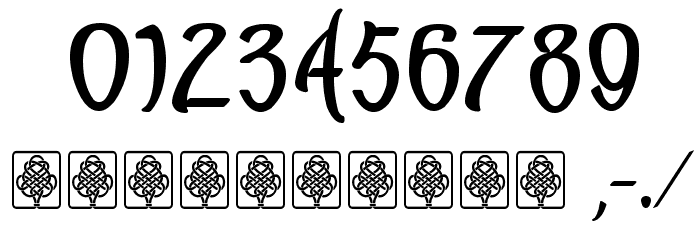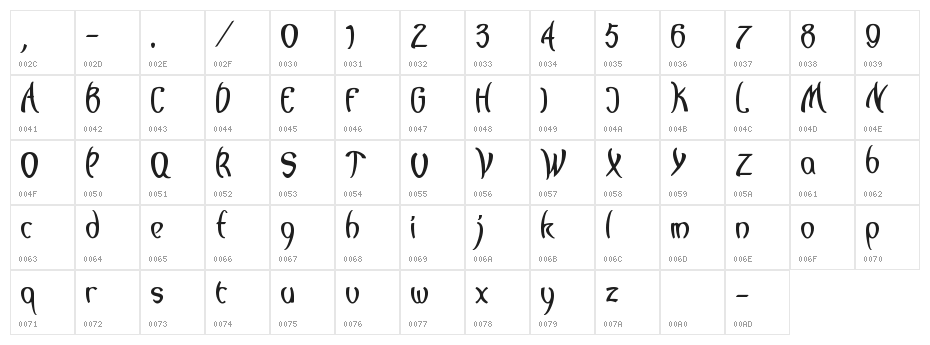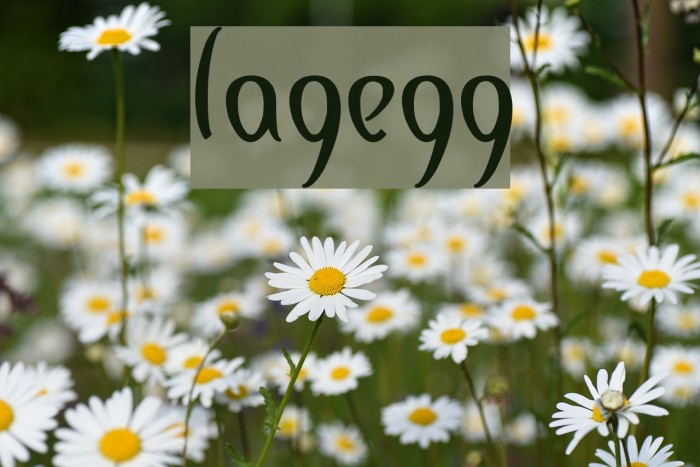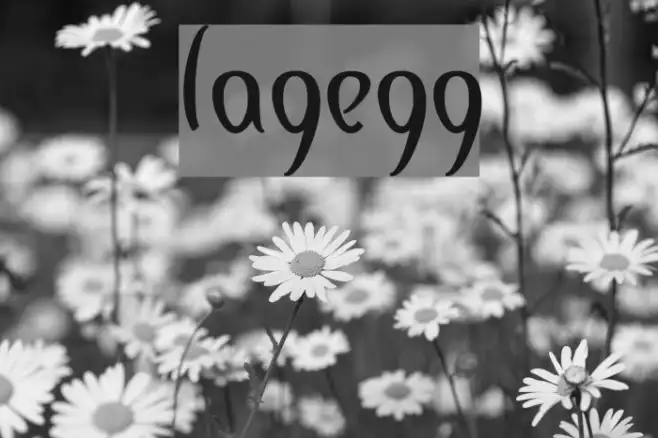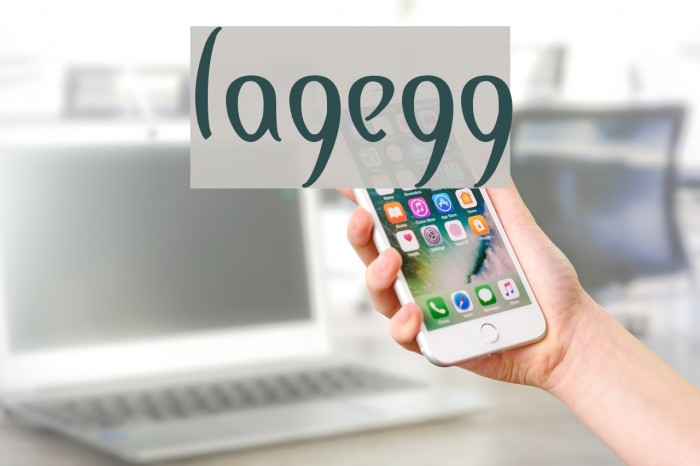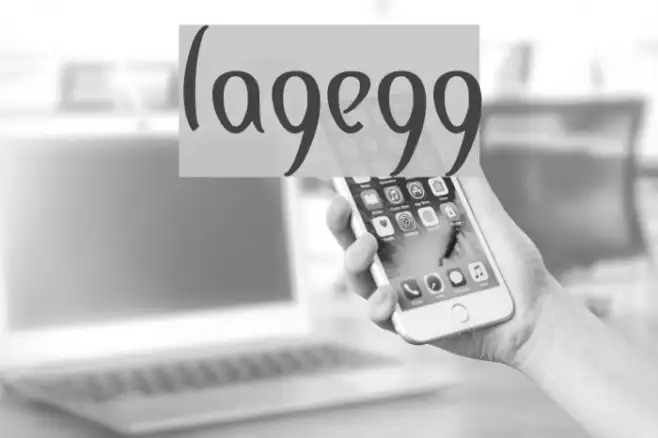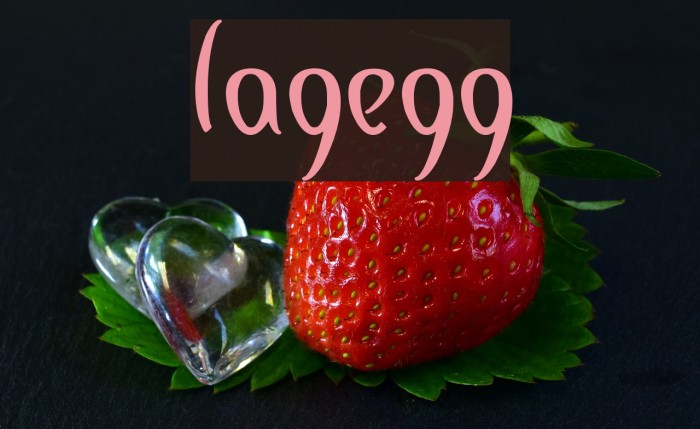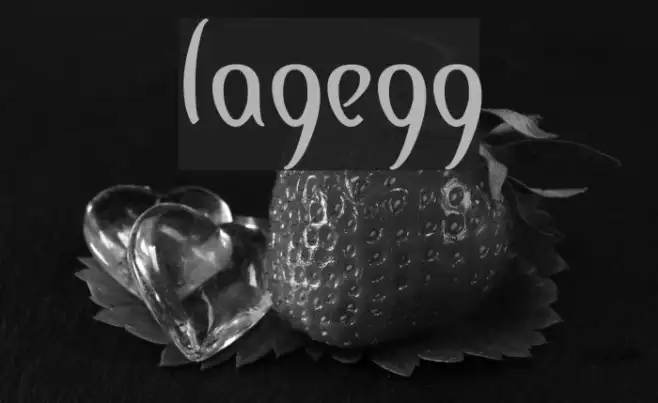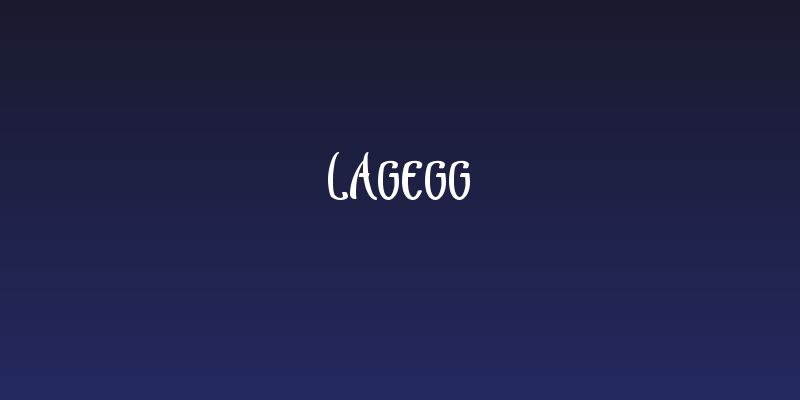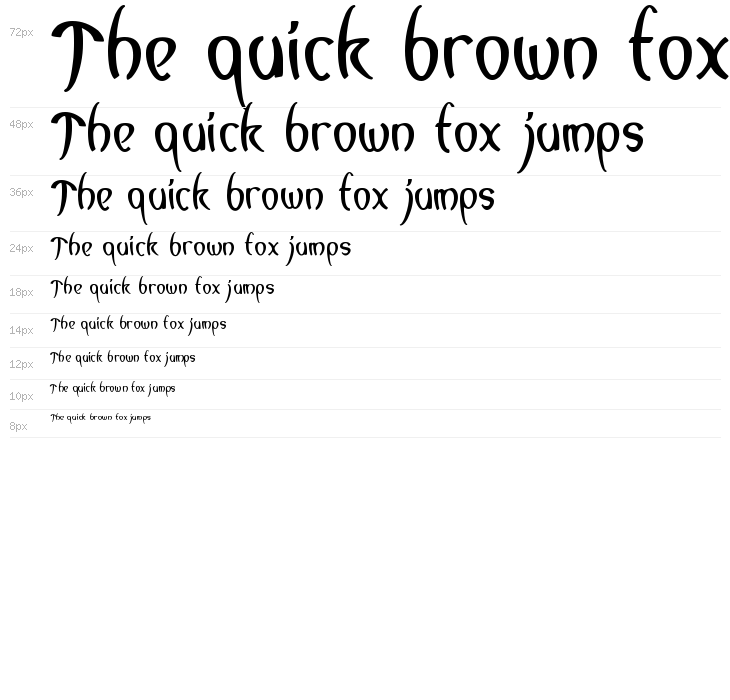
lagegg Font
lagegg Description
This font features a unique and artistic style with a flowing, calligraphic appearance. The characters have a hand-drawn quality, with elegant curves and a slightly whimsical touch. The uppercase letters are bold and prominent, while the lowercase letters maintain a consistent flow. The numbers are distinct and easy to read, complementing the overall design. Special characters are integrated seamlessly, adding to the font's versatility. This font exudes a sense of creativity and individuality, making it suitable for projects that require a personal and artistic touch.